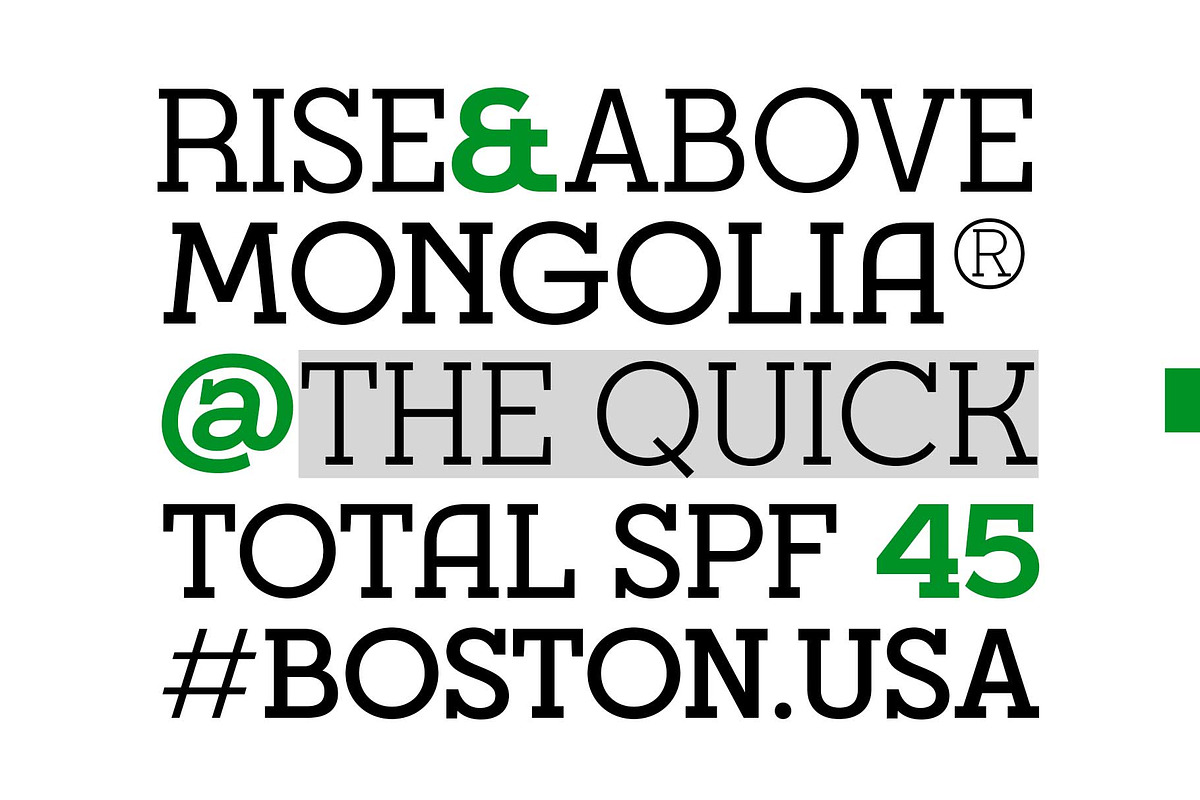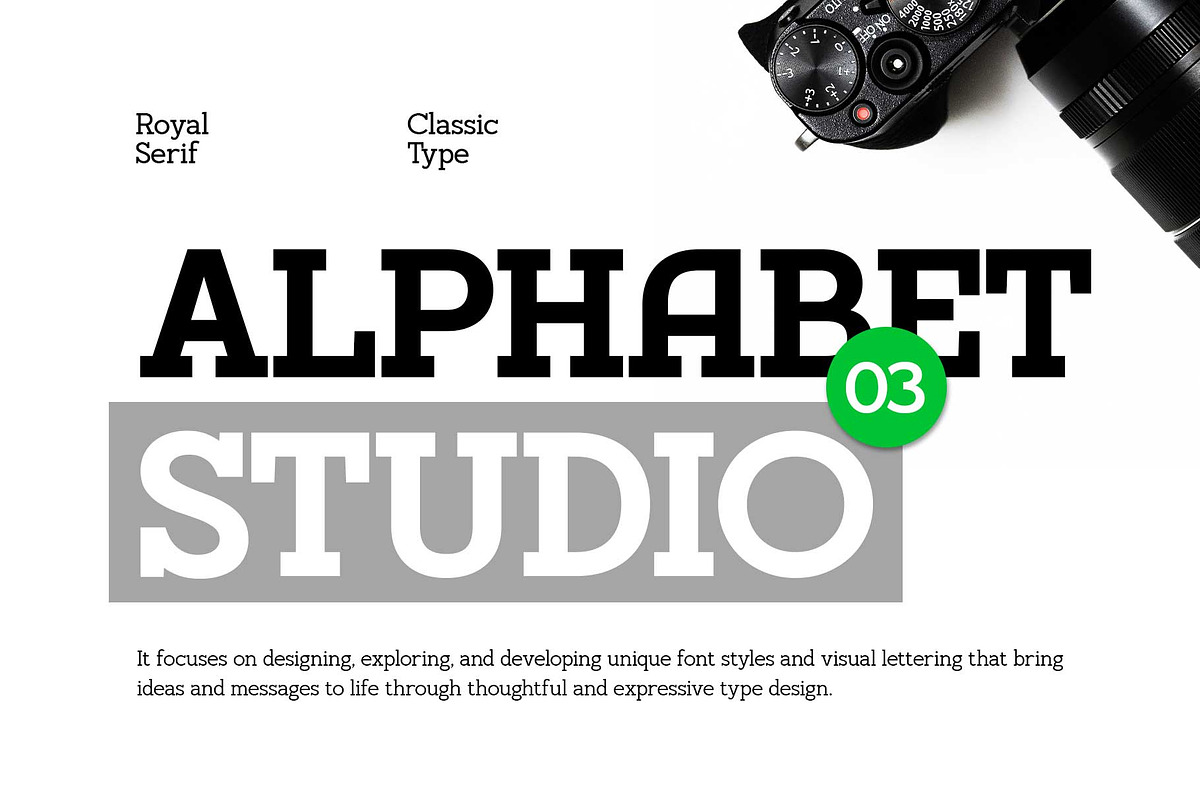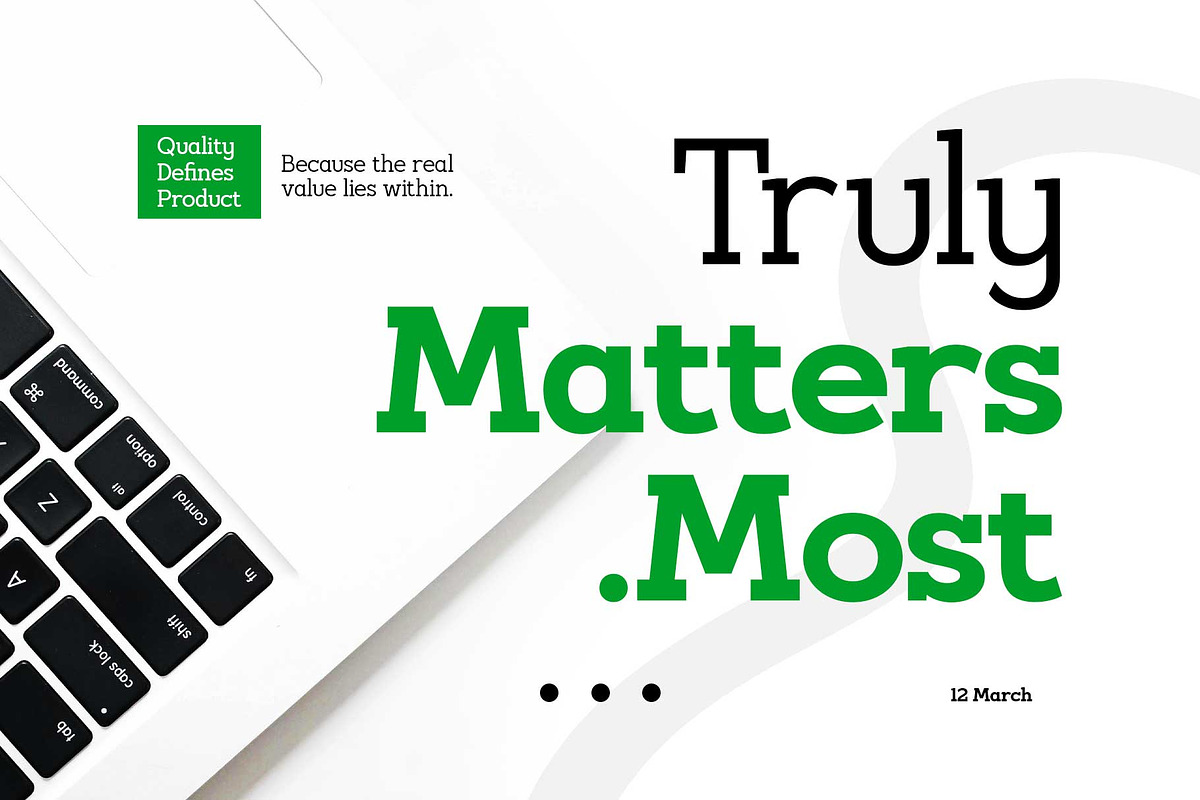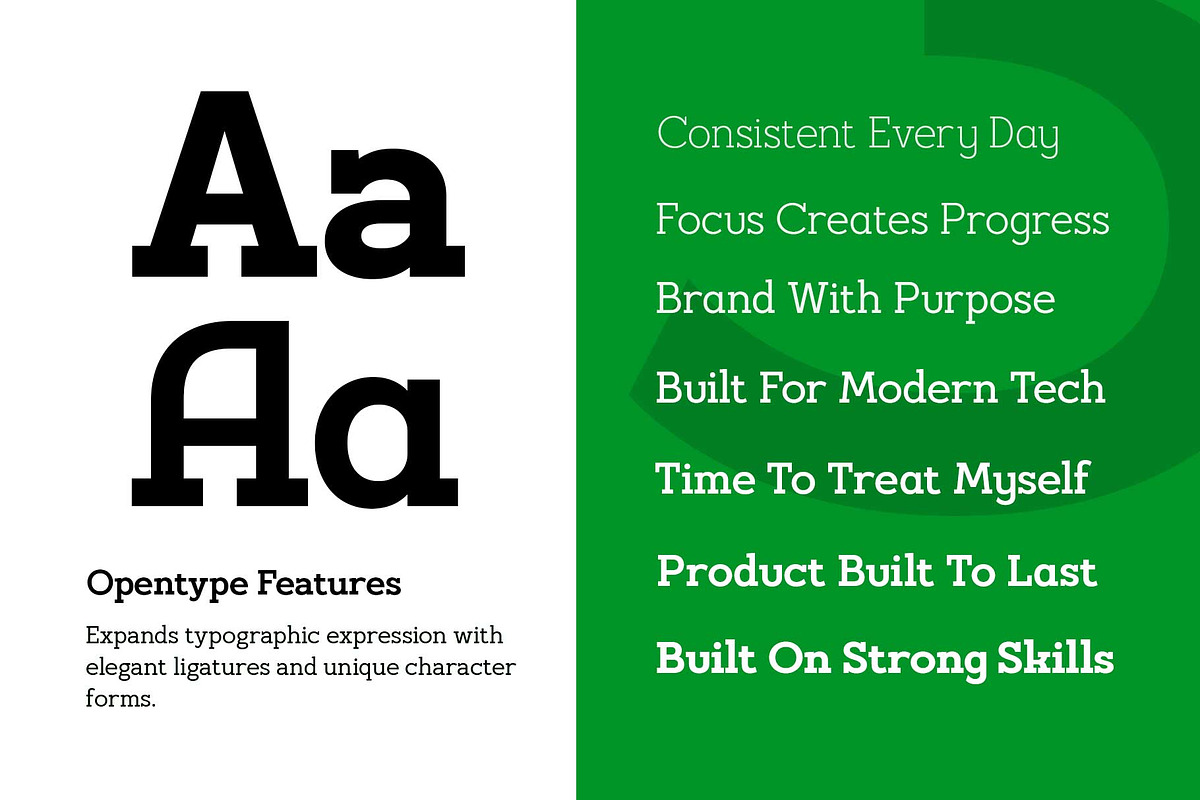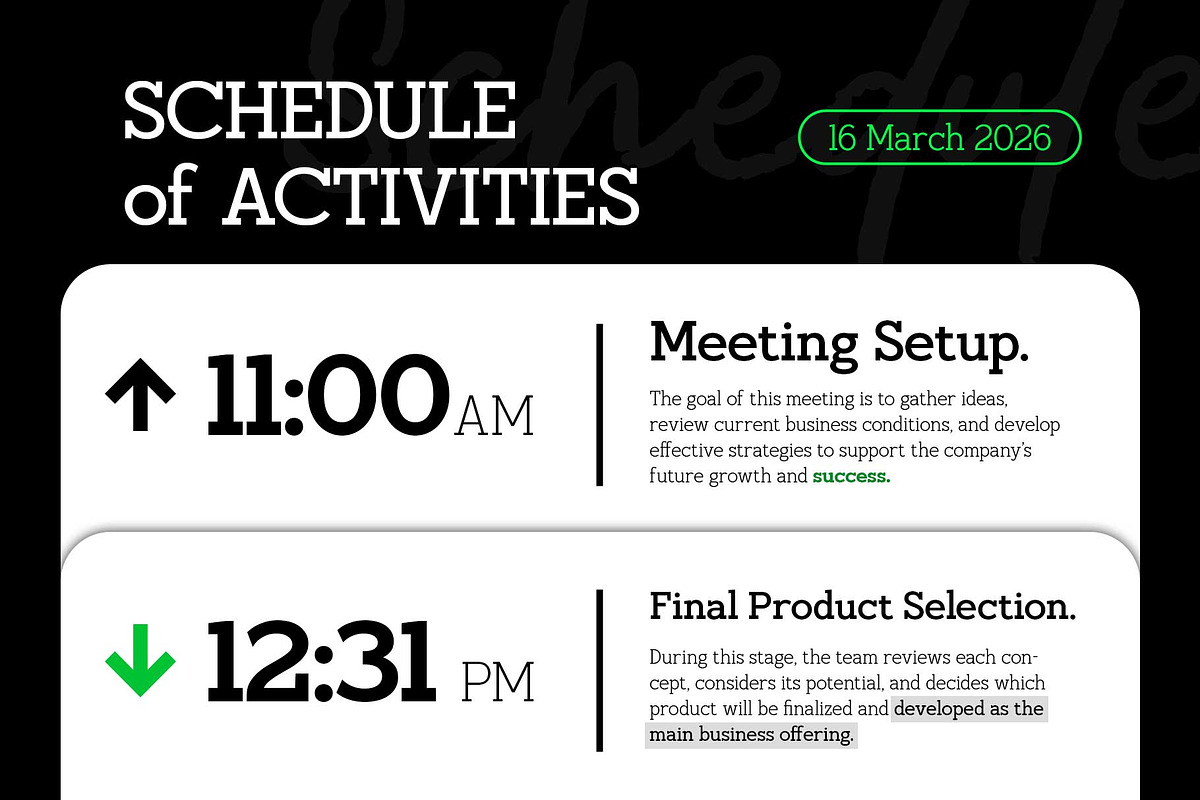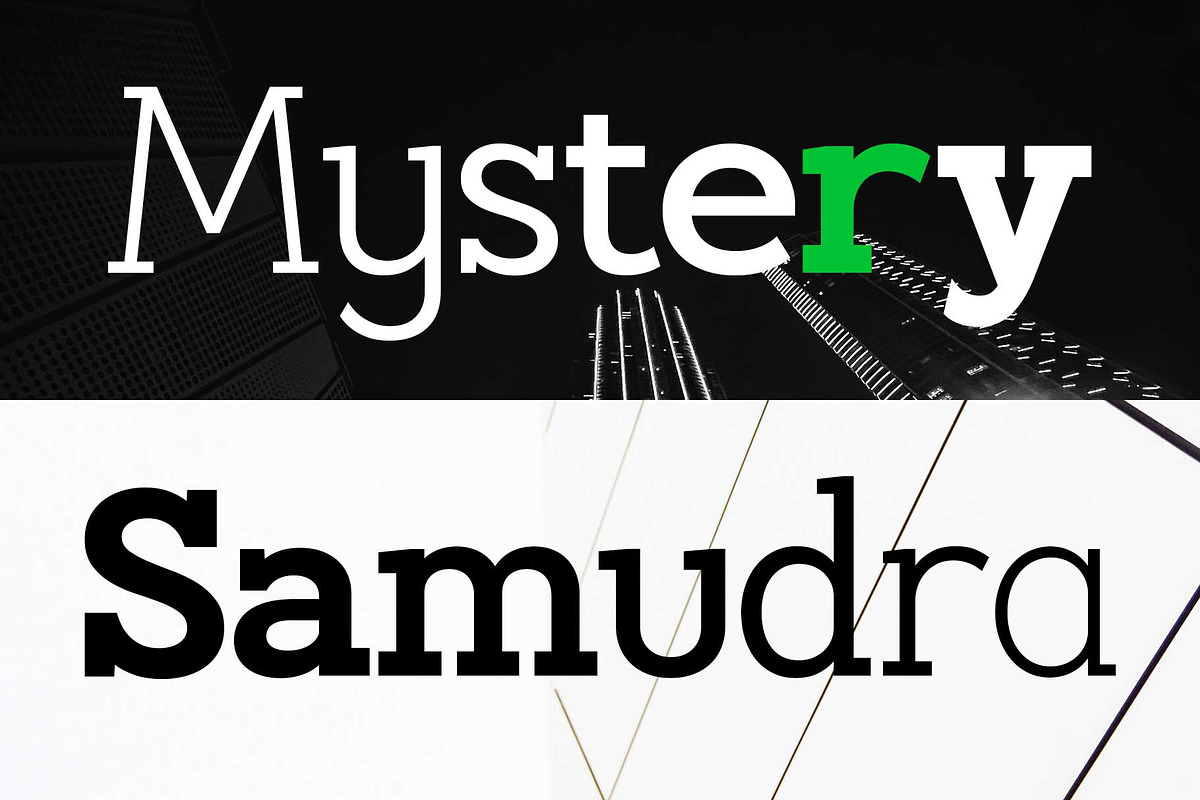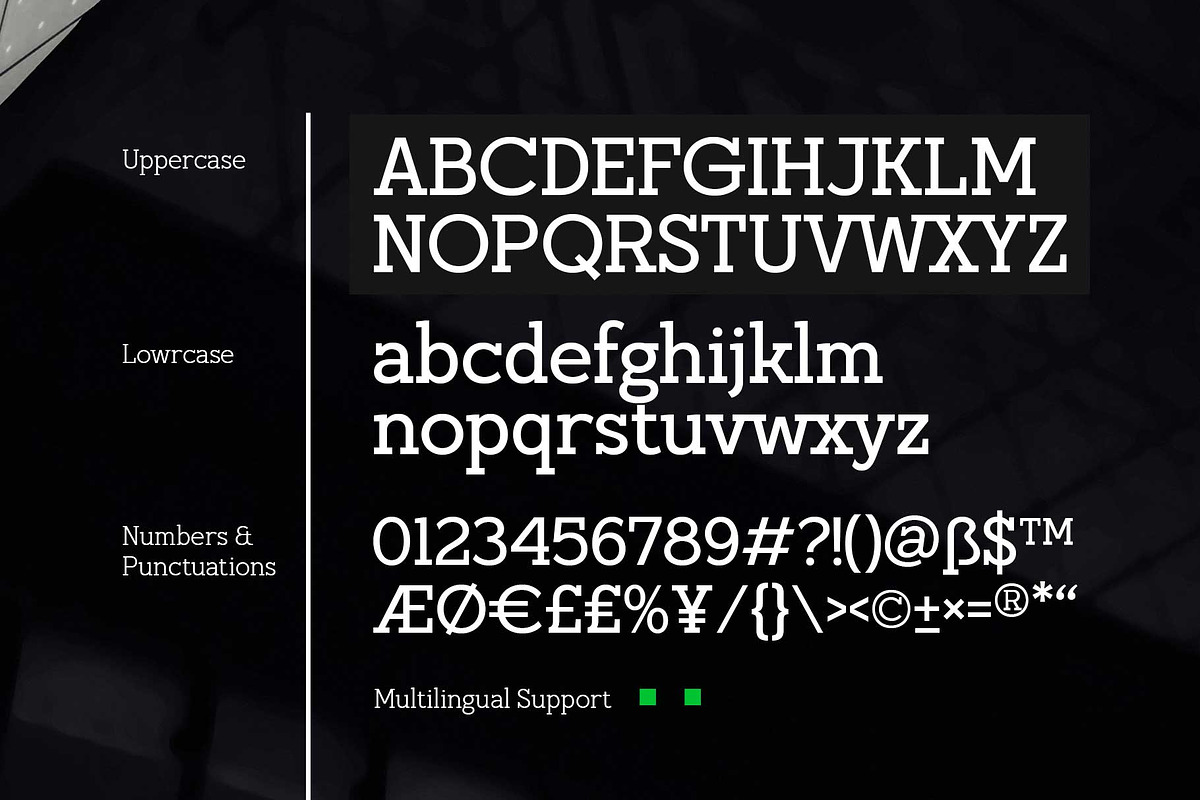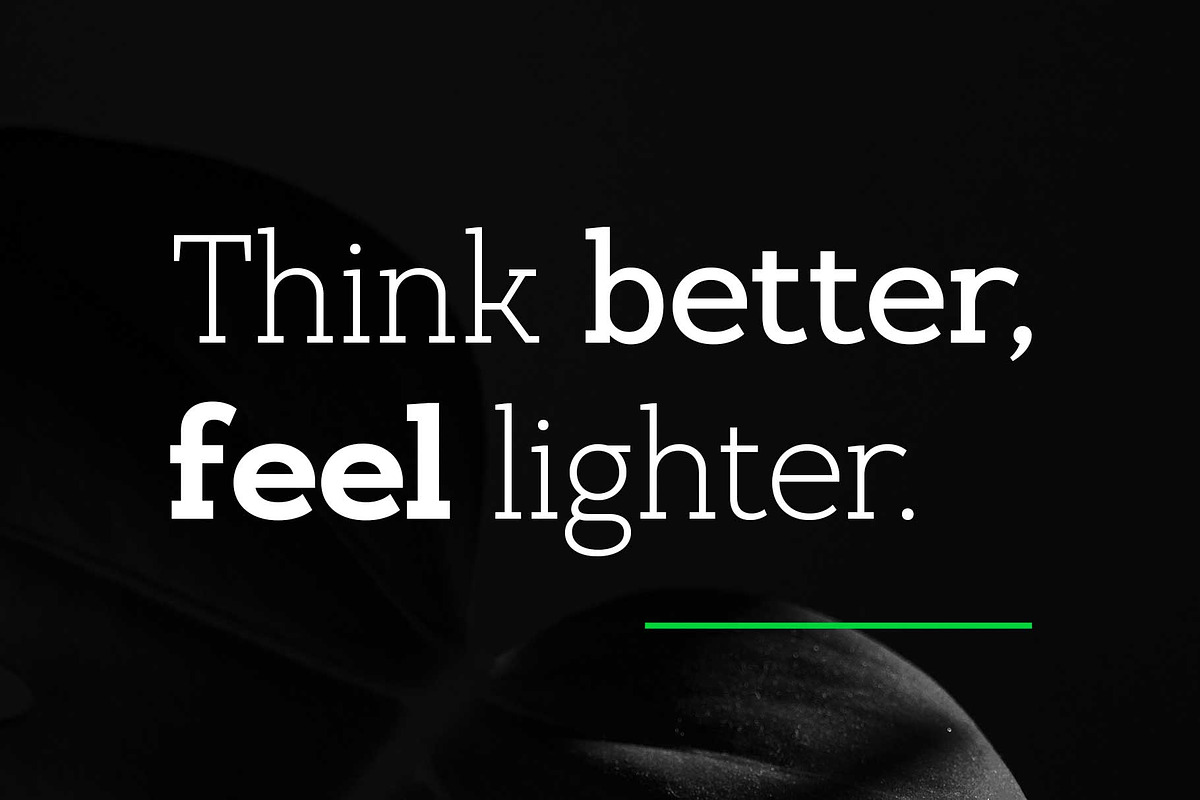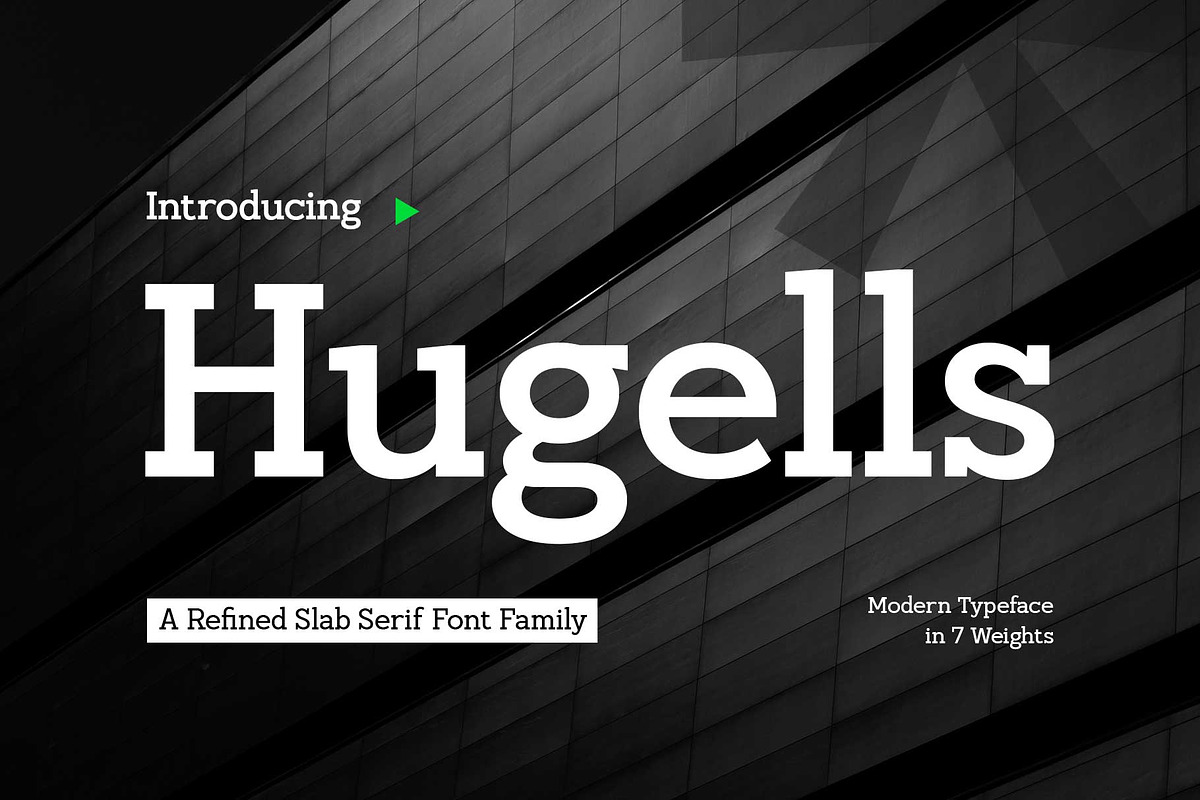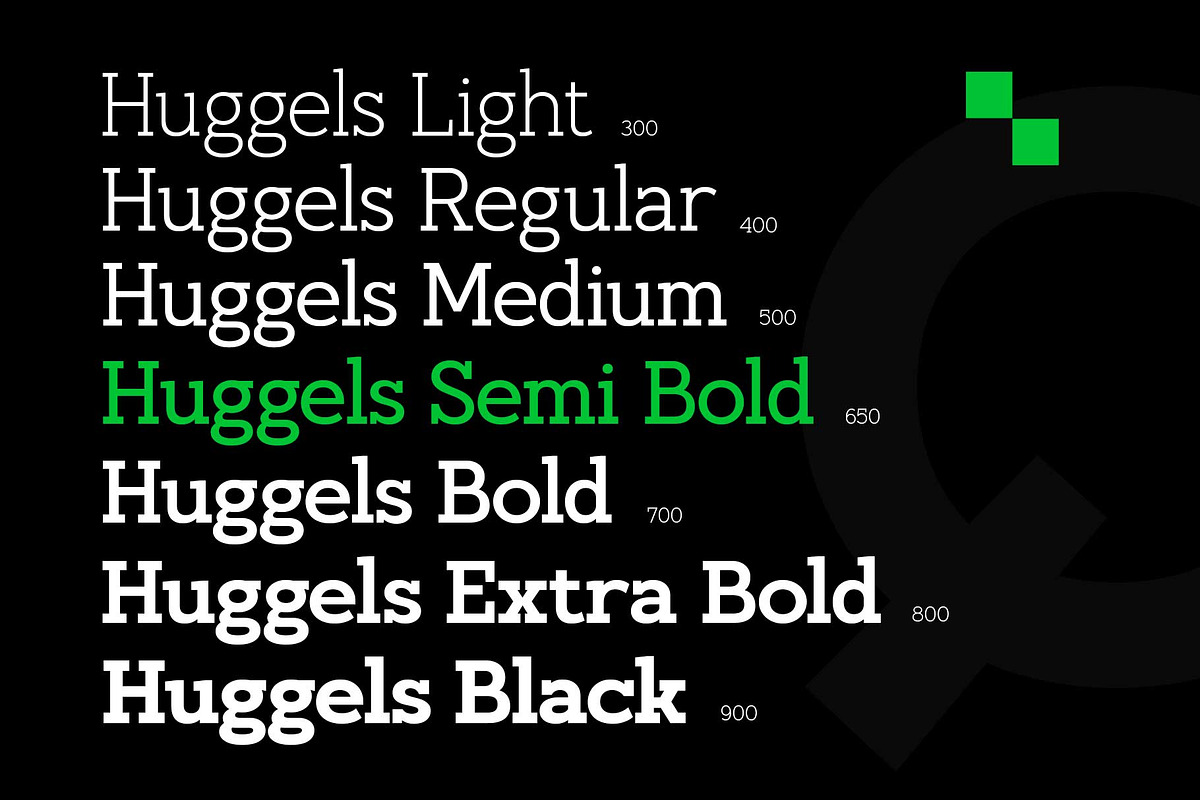
Hugells - Modern Slab Serif
Hugells is a modern slab serif typeface family available in 7 weights, designed to deliver a strong, refined presence across any design. With its bold serifs, balanced proportions, and clean construction, Hugells creates a confident and professional tone—perfect for both digital and print applications.
Built for versatility, the 7 carefully crafted weights allow you to create clear hierarchy, from elegant headlines to powerful statements. It also comes with a variable .OTF file, giving you full control to adjust the weight seamlessly to match your exact design needs. Combined with high readability, multilingual support, and OpenType features, Hugells is ready for branding, editorial, poster, logos, packaging, and modern UI design.
Hugells blends strength with sophistication—delivering typography that feels solid, flexible, and unmistakably modern.
- Stylistic alternates